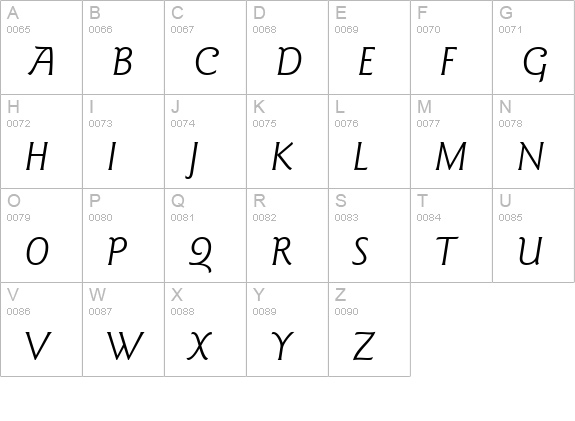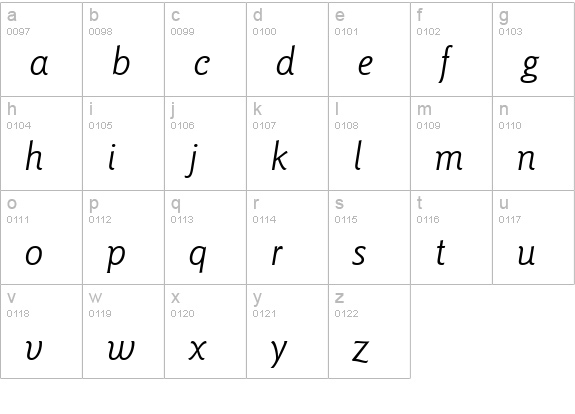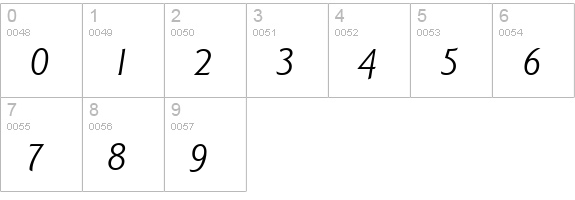
Goudy Sans Light Italic BT is a refined, elegant, italic variant in the Goudy typeface family \xE2\x80\x94 well suited to elegant body text, refined sub-headings, and luxury branding.
Goudy Sans Light Italic BT font is a modern and elegant typeface that exudes sophistication and style. Its sleek design and slanted italic style add a touch of flair to any project, making it perfect for a wide range of creative applications. The clean lines and subtle curves of this font make it easy to read while still maintaining a sense of uniqueness. Best of all, Goudy Sans Light Italic BT font is available for free download at FontsMarket.com. This means you can easily add this versatile and eye-catching font to your collection without breaking the bank. Whether you're designing a website, creating marketing materials, or working on a personal project, Goudy Sans Light Italic BT font is sure to impress with its timeless appeal and professional look. Download it today and elevate your designs with this stylish and freely available typeface.